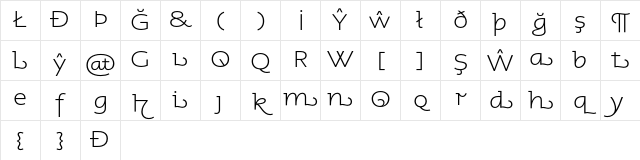
Complete AspectAlternates Light glyph index. Displaying only characters natively supported by AspectAlternates Light font.
AspectAlternates is a composed and adaptable typeface that performs quietly and consistently across a wide range of design contexts. Its slender proportions lend an understated elegance to any composition.